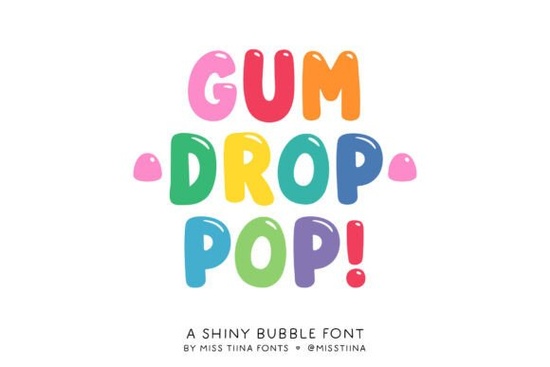
If you're looking for a bold, playful font that brings instant cheer to your projects, Gum Drop Pop! is a standout choice. This cheerful typeface turns ordinary text into something vibrant and full of personality perfect for anything that needs a little extra fun. Whether you’re designing birthday invites, crafting stickers, or building game UIs, this font adds a sugary sparkle that’s hard to ignore.
What makes Gum Drop Pop! font so special?
The real charm of Gum Drop Pop! lies in its unique design. Each letter has ultra-thick, rounded shapes that look like soft candy bubbles, with crisp white highlights that mimic a glossy, shiny finish. These details give the font a three-dimensional, almost balloon-like feel like it’s floating off the page. It’s not just visually fun; it also works well in layouts where you want the text to be the main focus.
It’s especially effective when used in colorful arrangements. Try assigning different pastel shades to each letter to create a rainbow effect ideal for kids’ products, party themes, or branding for sweet treats. The font pulls double duty: it’s playful enough for children's content but stylish enough for modern kawaii-inspired designs.
Where can you use Gum Drop Pop! font?
- Birthday invitations – Make your event announcements feel festive and joyful.
- Candy shop branding – Perfect for packaging, menus, or storefront signs.
- Game UI elements – Great for buttons, titles, or pop-up messages in casual games.
- Sticker sheets and digital art – Ideal for printable crafts, planners, or social media graphics.
- Children’s books or educational materials – Helps keep young readers engaged with lively visuals.
For a cleaner, more professional look, pair Gum Drop Pop! with a thin, minimalist sans-serif font. This contrast keeps the focus on your bold headlines while grounding the design with balance.
How to make the most of this bubbly font
Don’t just use Gum Drop Pop! as plain text play with it. Add soft pastel clouds behind the letters, sprinkle in tiny confetti icons, or place it over gradient backgrounds to boost the celebratory mood. These small touches turn a simple design into something memorable.
You’ll find it especially useful if you’re exploring styles from the 90s nostalgia wave or the current kawaii trend. The font blends both worlds beautifully childlike joy meets modern design flair.
Final thoughts: Is Gum Drop Pop! right for your next project?
If your goal is to add excitement, warmth, and a touch of whimsy to your work, yes this font delivers. It’s easy to use, instantly recognizable, and works across many formats. Whether you’re a designer, craft seller, or hobbyist, it’s a reliable tool for creating joyful visuals that stand out.
Quick tip: Always test your font at different sizes its glossy highlights shine best when displayed clearly, especially in print or high-res digital files.